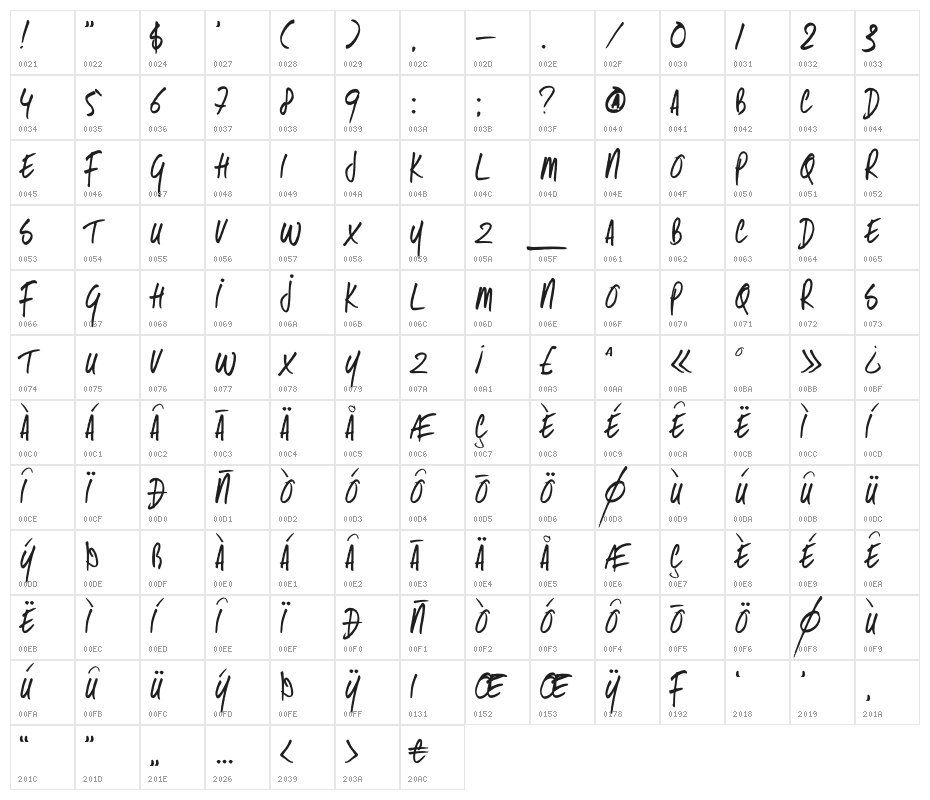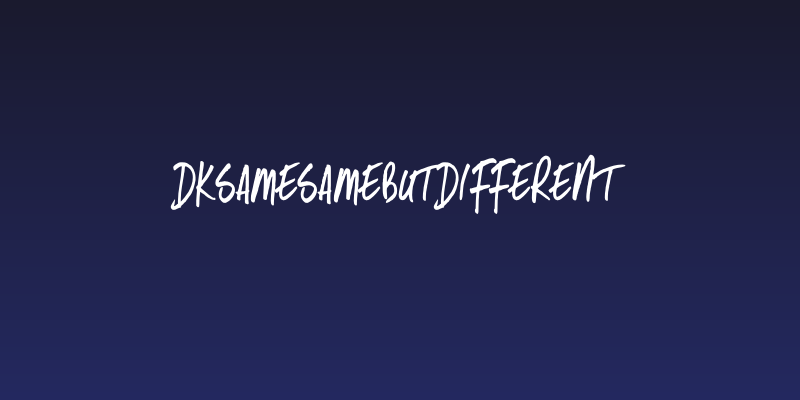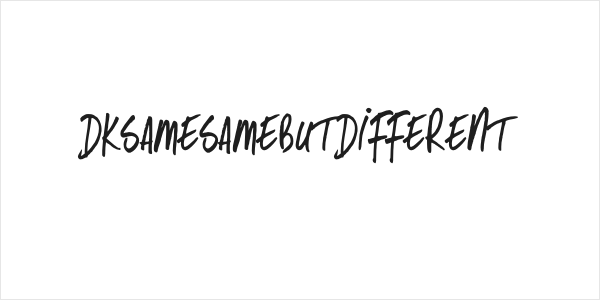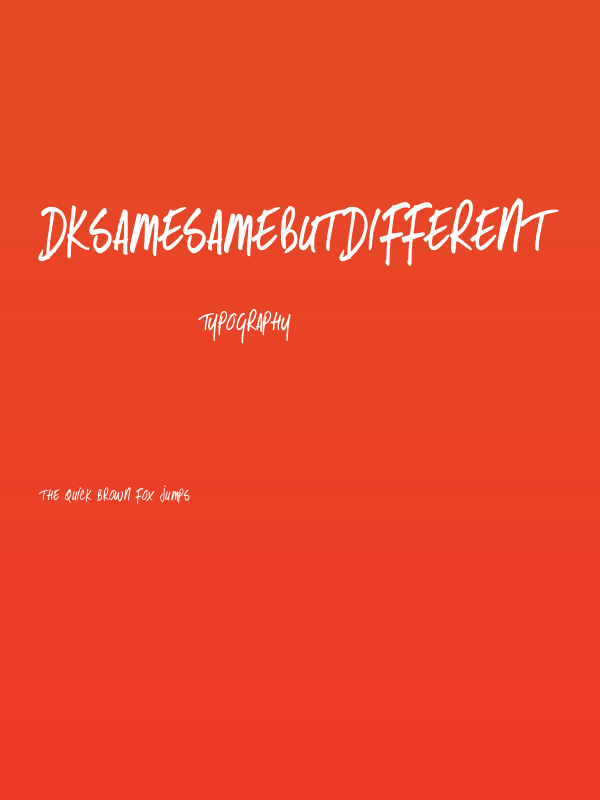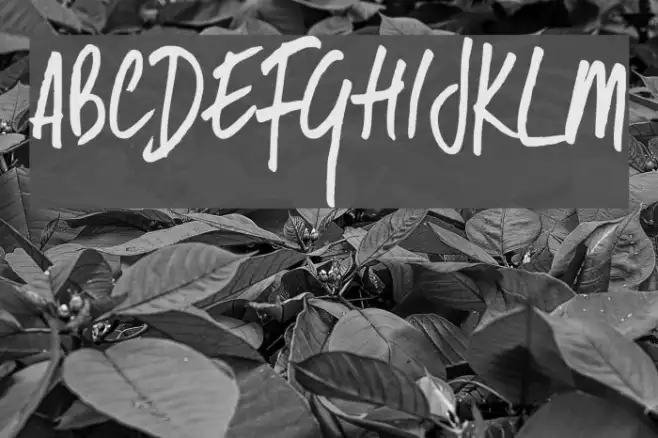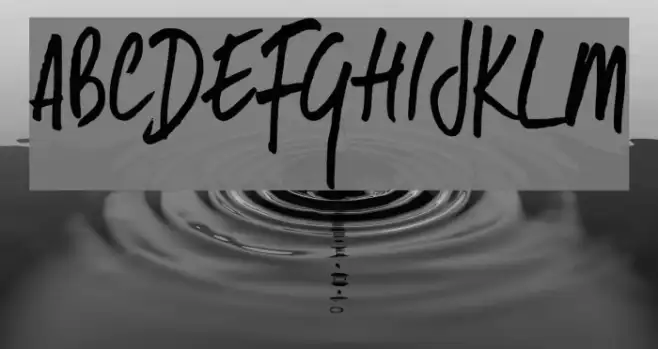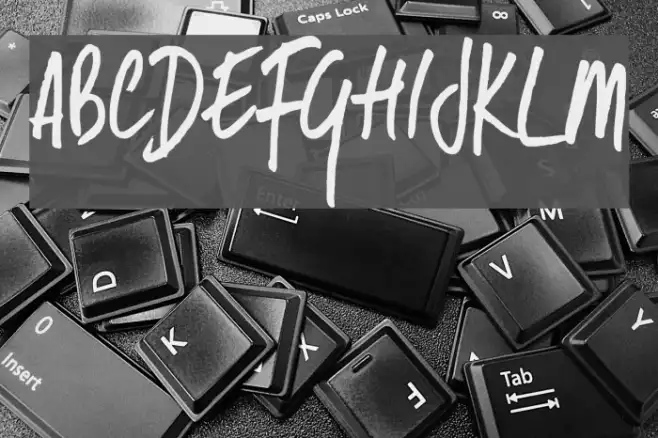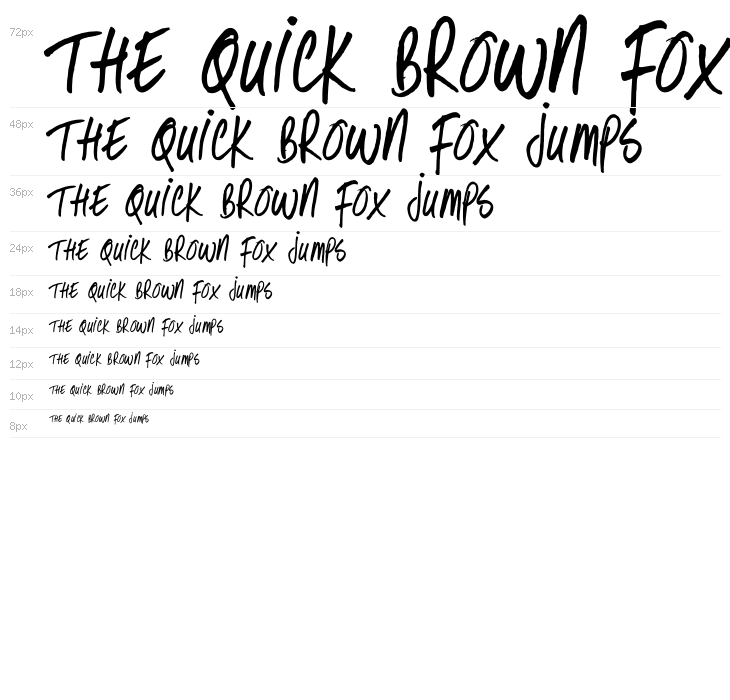
DKSameSameButDifferent Font
DKSameSameButDifferent Description
This font exhibits a lively and dynamic handwritten style, characterized by its bold and expressive strokes. The letters are slightly slanted, giving a casual and informal appearance. The uppercase and lowercase letters maintain a consistent flow, with rounded edges and varying stroke widths that add to its energetic feel. The numbers and special characters are equally expressive, fitting seamlessly with the overall design. This font is perfect for projects that require a personal touch or a creative flair.
| Overall Style | Casual, Energetic |
| Use Case | Headlines, Creative projects, Informal communications |
| Proposed Projects | Ideal for greeting cards, invitations, posters, and creative branding projects. |